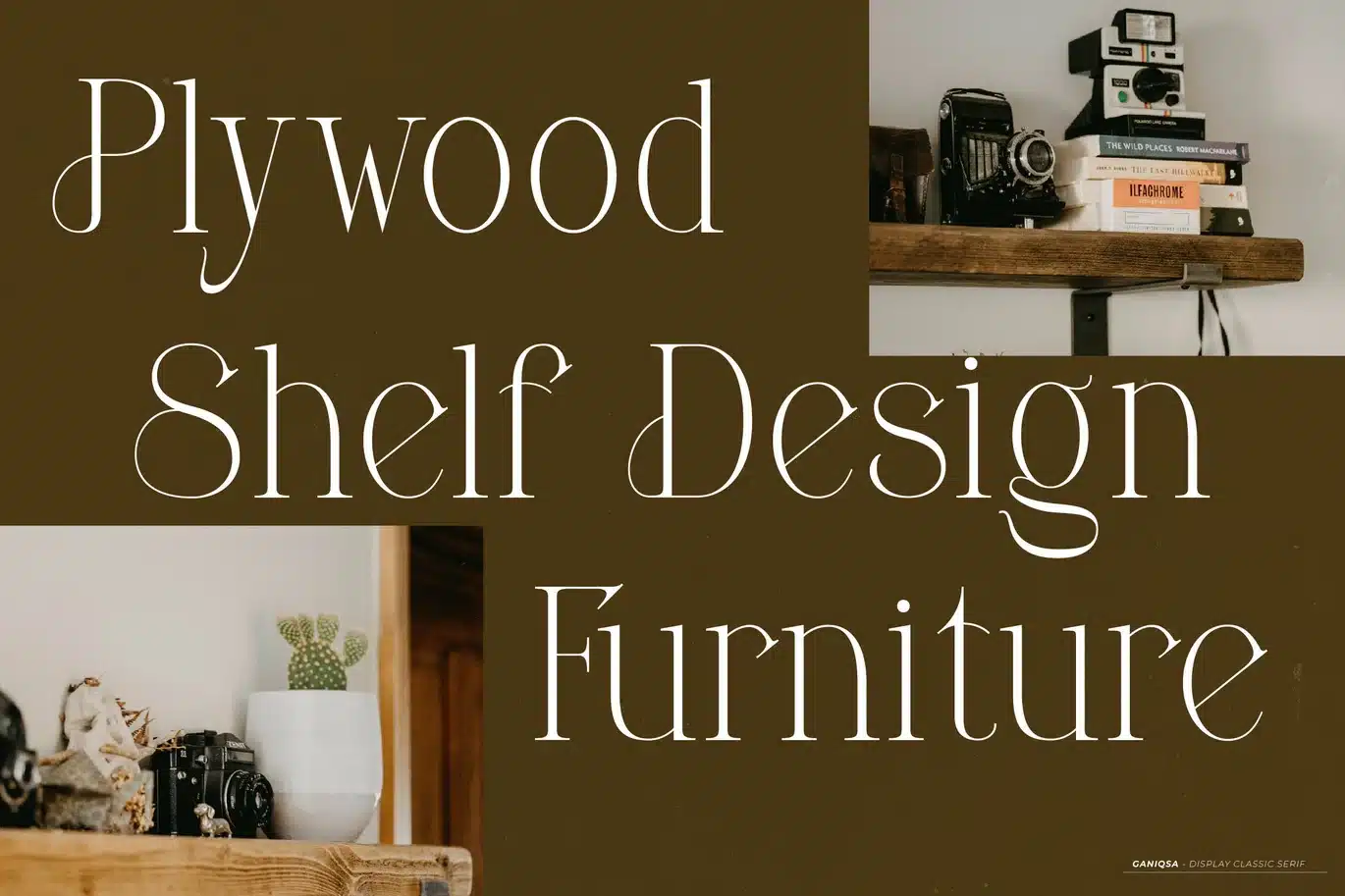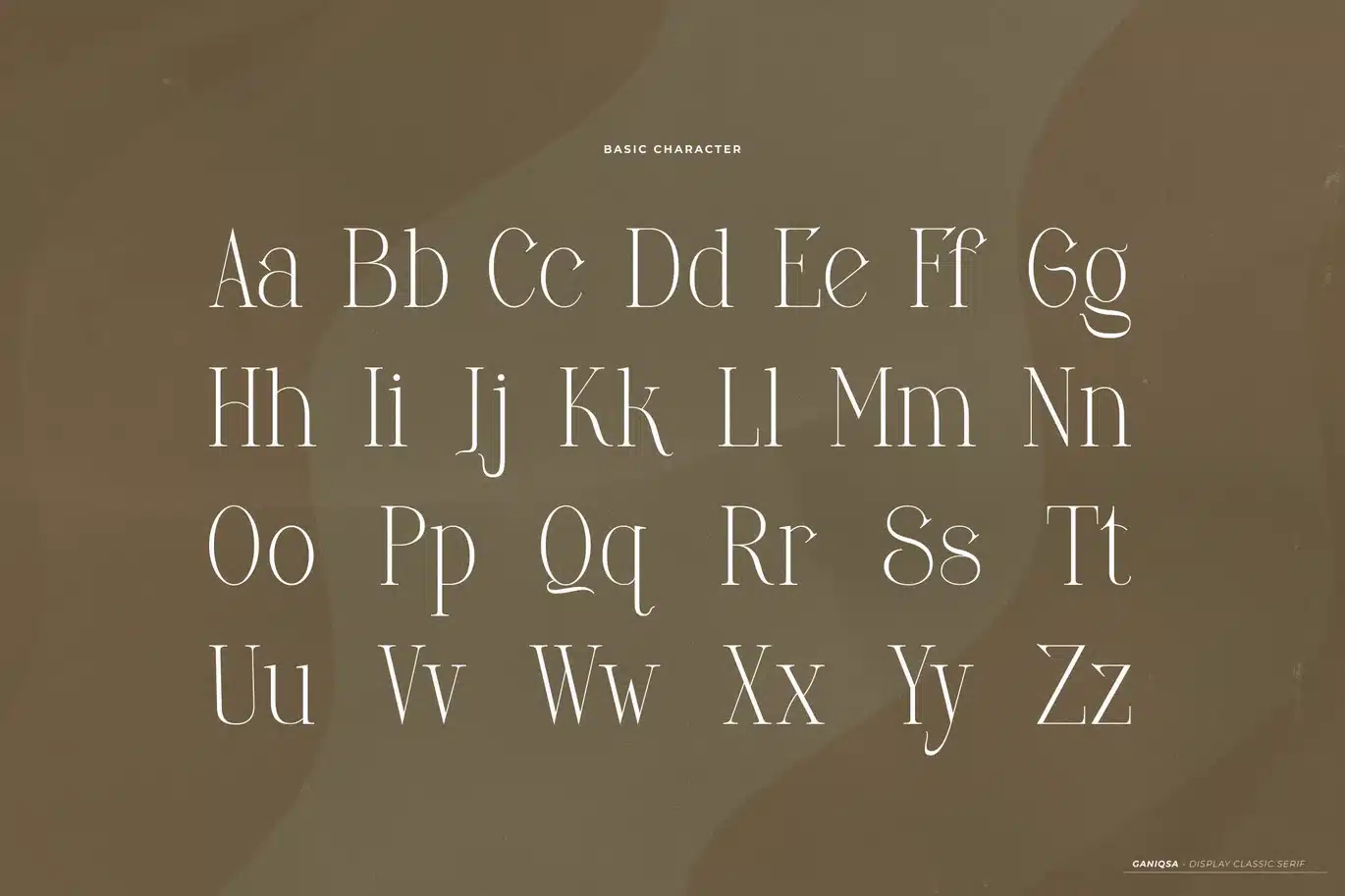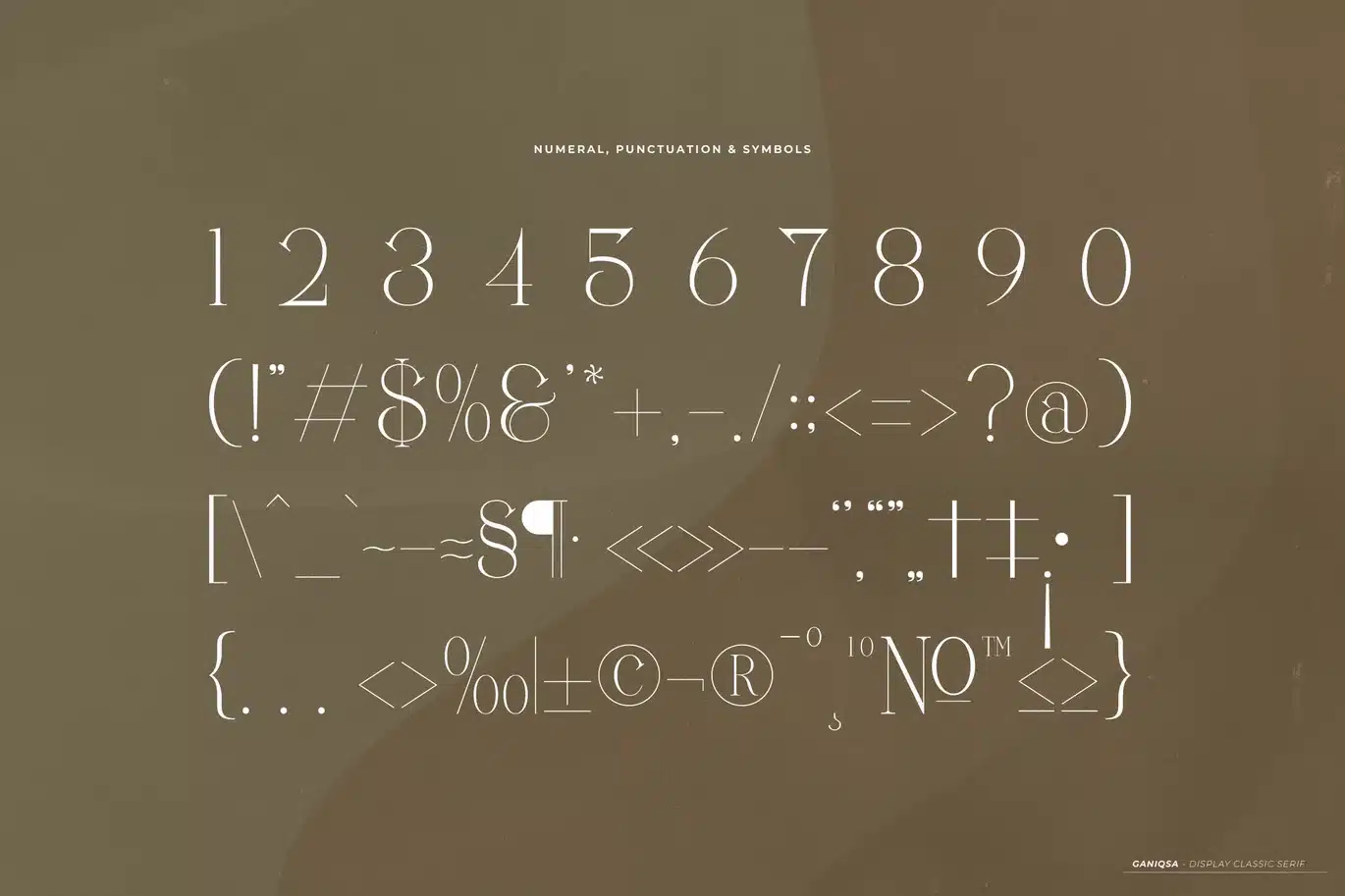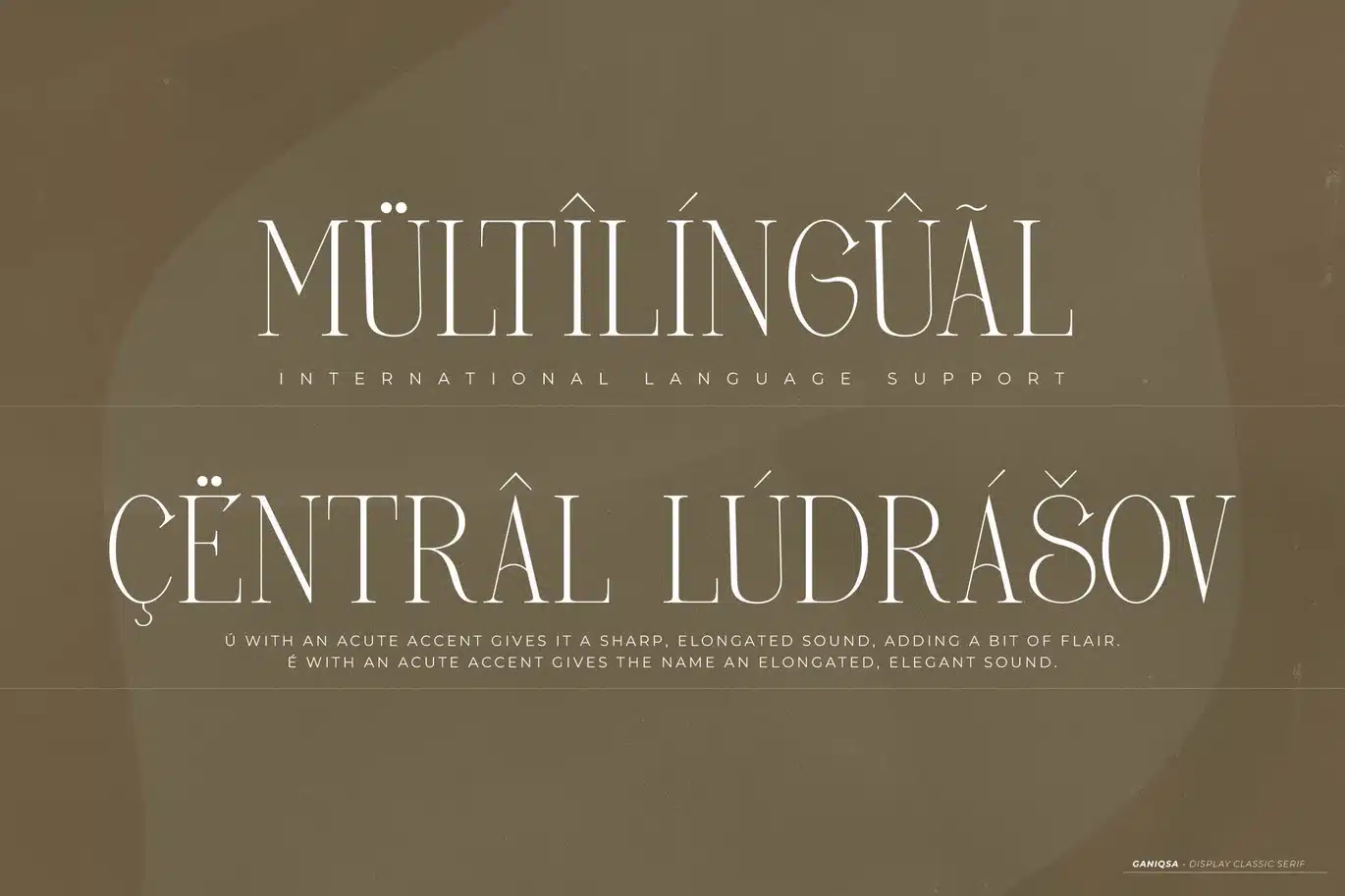
Ganiqsa | Display Elegant Serif Font
Ganiqsa font is designed to deliver a strong, versatile visual character, balancing aesthetics and readability. Every detail is carefully crafted to ensure a clear, consistent, and visually appealing result across a wide range of design needs.
With well-structured letter proportions and support for features such as alternate characters and ligatures, this font allows for greater creative exploration. The final result is dynamic, distinctive, and professional, making it adaptable to a range of design styles.